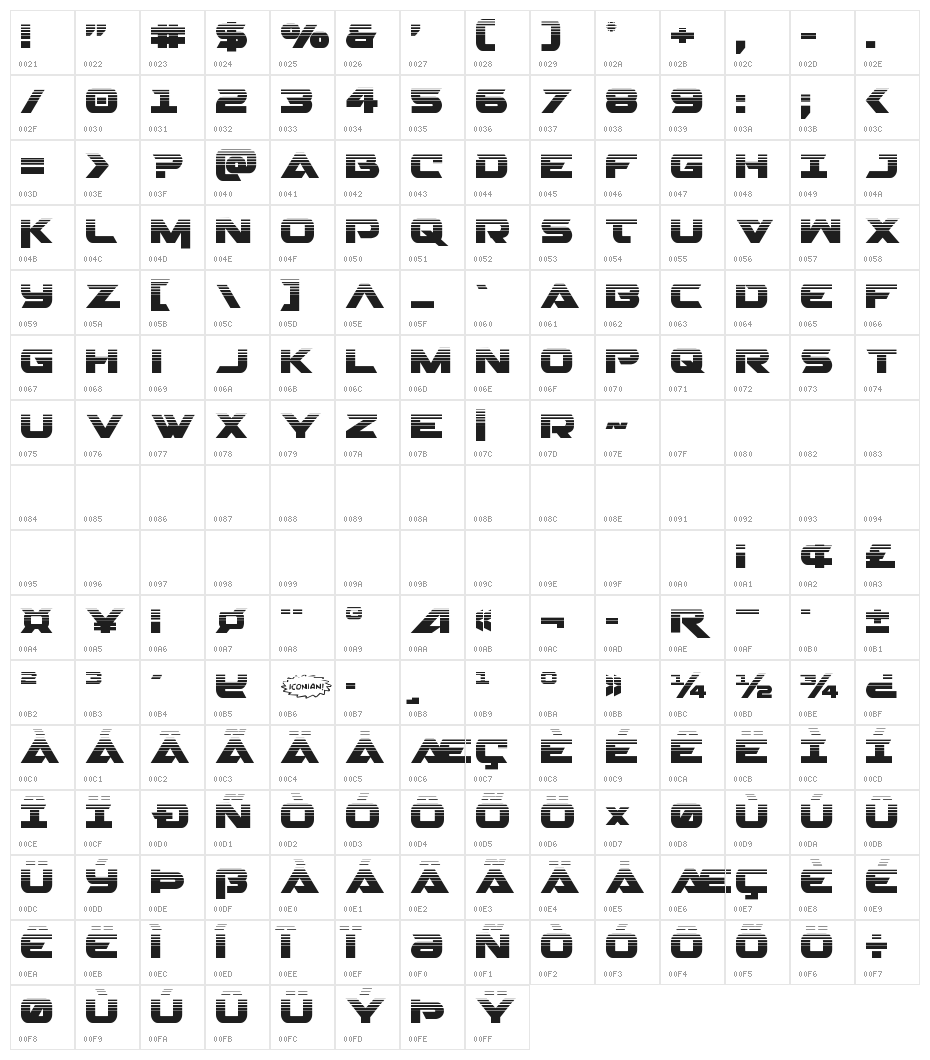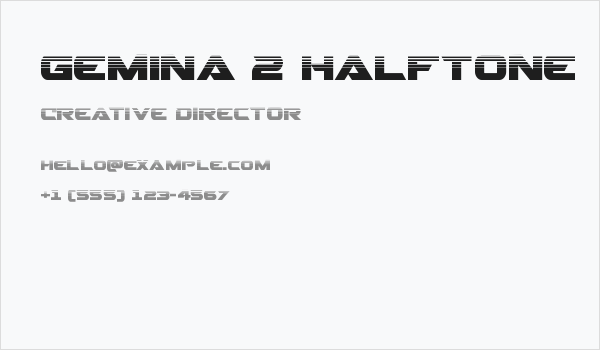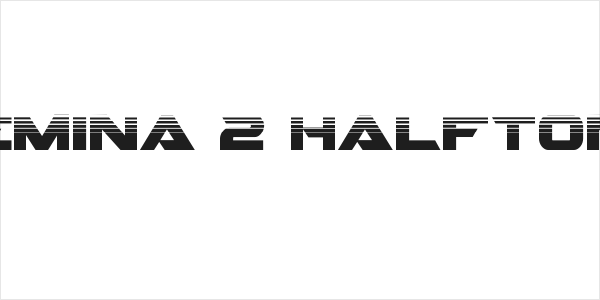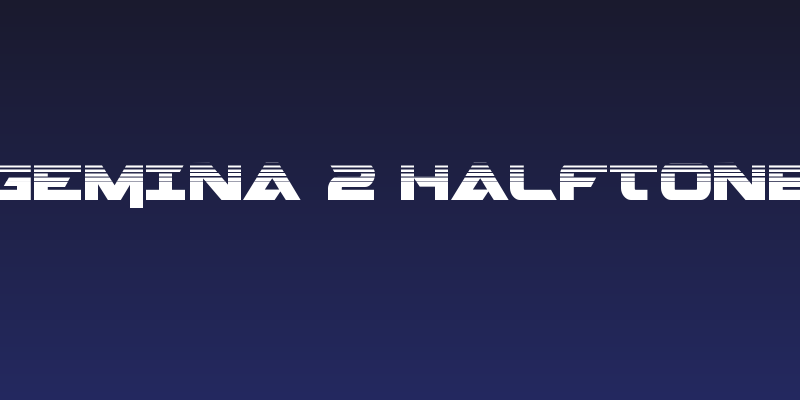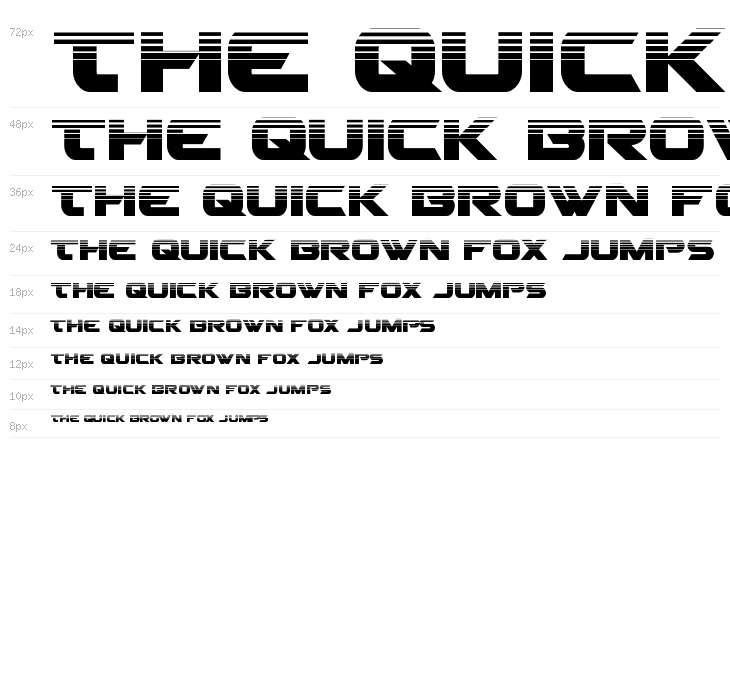
Gemina 2 Halftone Font
Gemina 2 Halftone Description
This font features a bold, futuristic design with a halftone effect that gives it a unique, digital appearance. The characters are constructed with solid, geometric shapes and horizontal lines that create a sense of movement and depth. The uppercase letters are particularly striking, with sharp angles and a strong presence. The numerals and special characters maintain the same bold style, ensuring consistency across all elements. This font is ideal for projects that require a modern, tech-inspired aesthetic.
| Proposed Projects | Ideal for technology branding, sci-fi posters, video game titles, and digital media. |